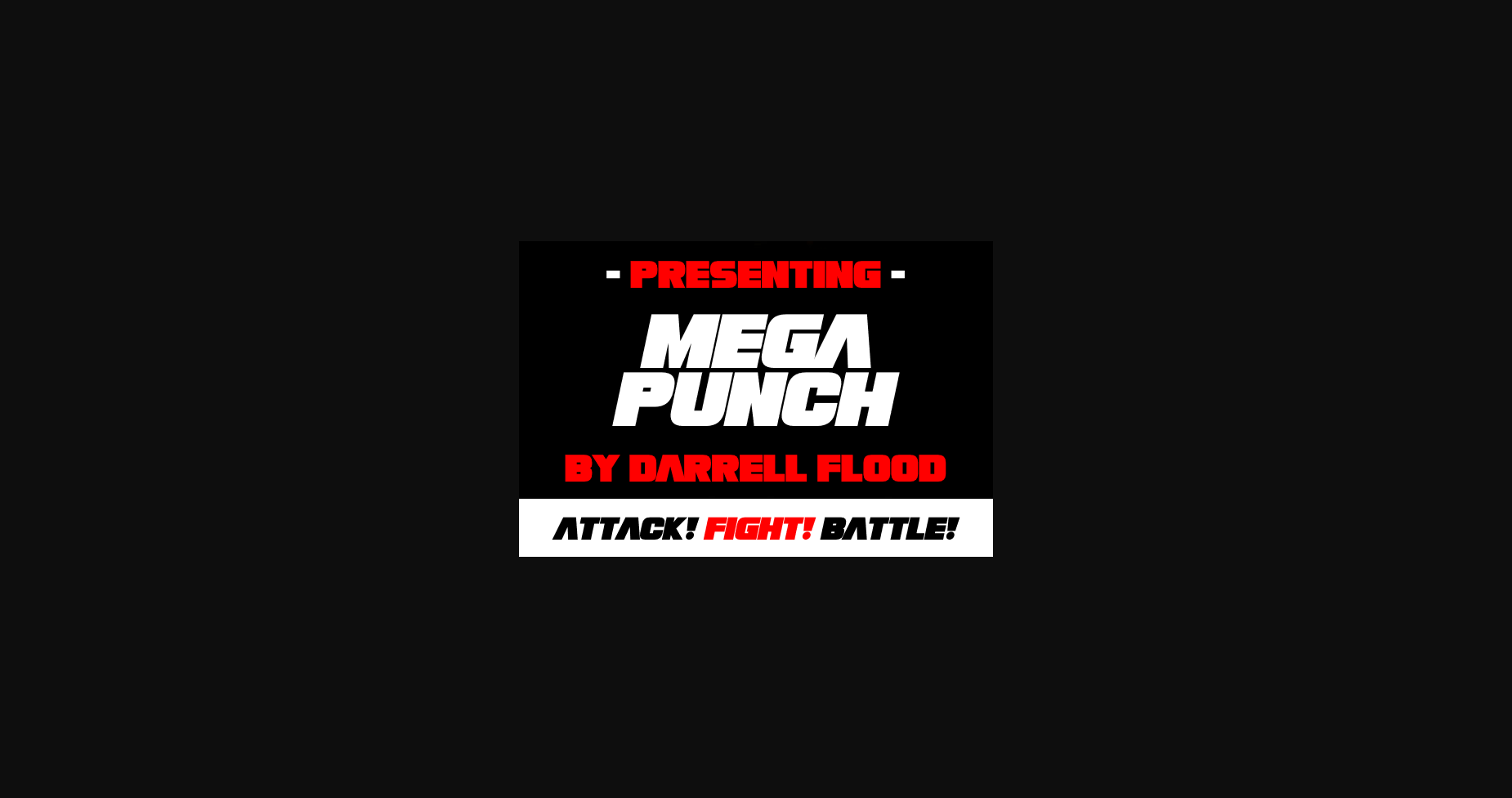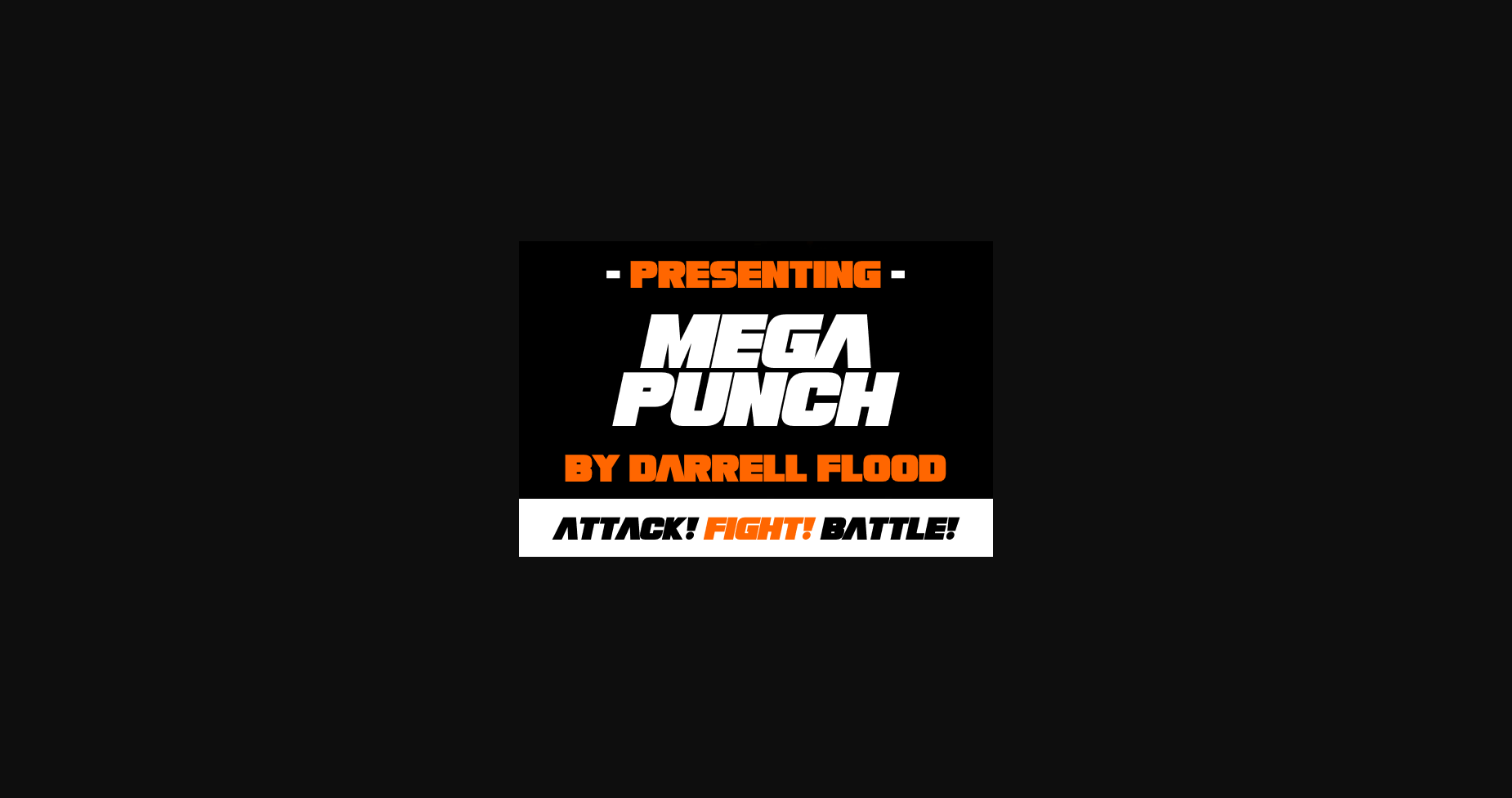
HomeSans Serif FontsMegapunch Font Sans Serif Fonts Megapunch Font FacebookXPinterestWhatsApp 1 of 4 ... Megapunch Font Poster 2... Megapunch Font Poster 3... Megapunch Font Poster 4... About Megapunch Font Megapunch is a powerful, high impact font in an ultra-bold, tight, strong style. Perfect for epic battles, street fight themes, and general everyday title use! DOWNLOAD NOW People also explored Beard Font Just Enough Font Gerkco Semi-Bold Font The Salvador Snow Bright Font Chunky Font Northrow Font Magnolia Font Cosmos Logic Font 341 0 TagsMegapunch Font Previous articleBeginning FontNext articleVemoly Display Font LEAVE A REPLY Cancel reply Comment: Please enter your comment! Name:* Please enter your name here Email:* You have entered an incorrect email address! Please enter your email address here Website: Save my name, email, and website in this browser for the next time I comment. Personal Use Free Kitsor Rauttie Personal Use Free Read more about this font Hunters Personal Use Free Read more about this font Ashay Personal Use Free Read more about this font Kidly Personal Use Free Read more about this font BLOG Free Fonts Risk: Why Free Fonts Can Be Dangerous for Designers Free Fonts Risk: Why Free Fonts Can Be Dangerous for Designers Using free fonts is a common practice in web and graphic design. However, the... The 10 Best Handwriting Fonts to Add Personality to Your Designs Free vs Paid Fonts: Why Investing in Premium Fonts Is Worth It How to Cut Any Font on Cricut: Convert a Font to SVG (Free)